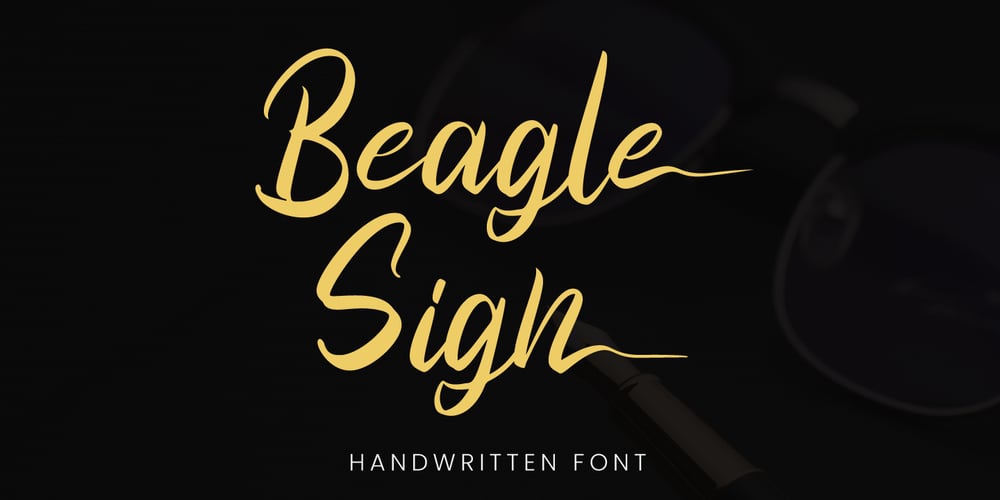
Beagle Sign
Beagle Sign font
Beagle Sign Font Family was designed by Fadli Ramadhan Iskandar and published by Attype Studio. Beagle Sign contains 1 styles and family package options. Beagle Sign is a stylish signature font with ending stylistic set that make amazing combination.perfect for any product like branding, invitation, stationery, wedding designs, social media posts, advertisements, product packaging, product designs, label, photography, watermark, special events or anything.Features:- Beagle Sign.otf- Multilingual Support- ligature- Ending stylistic set- Support Opentype features—Hope you enjoy with our font!Attype Studio